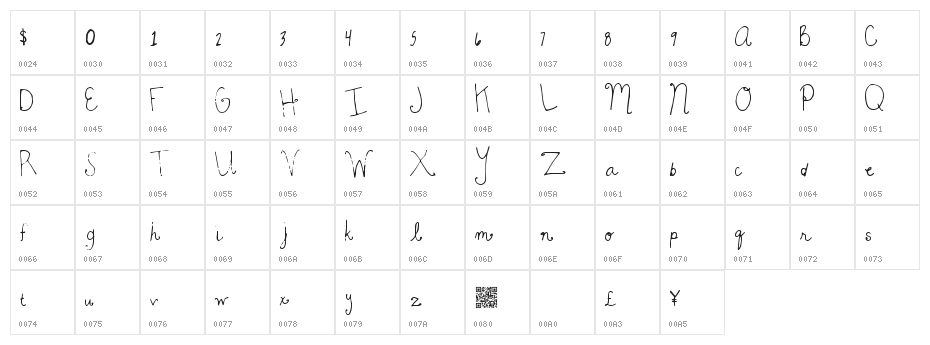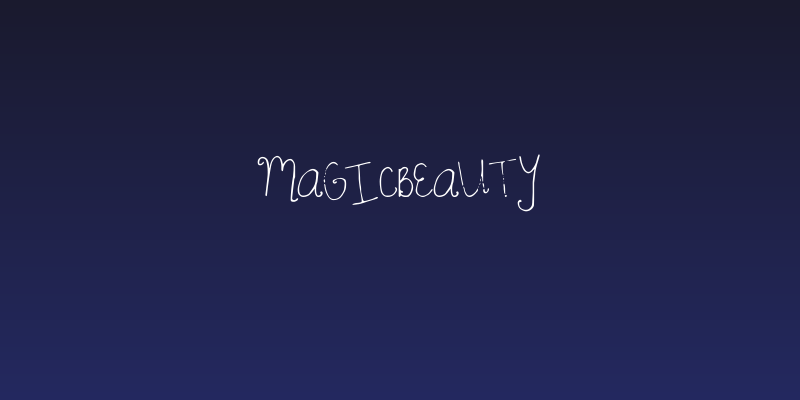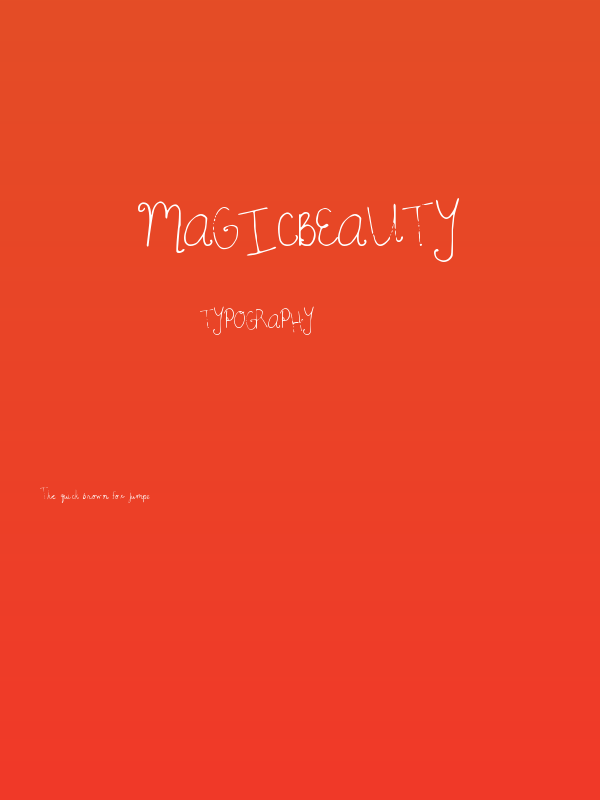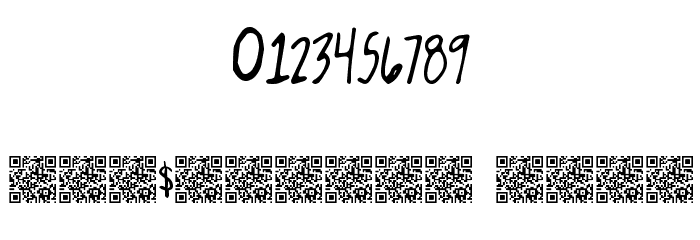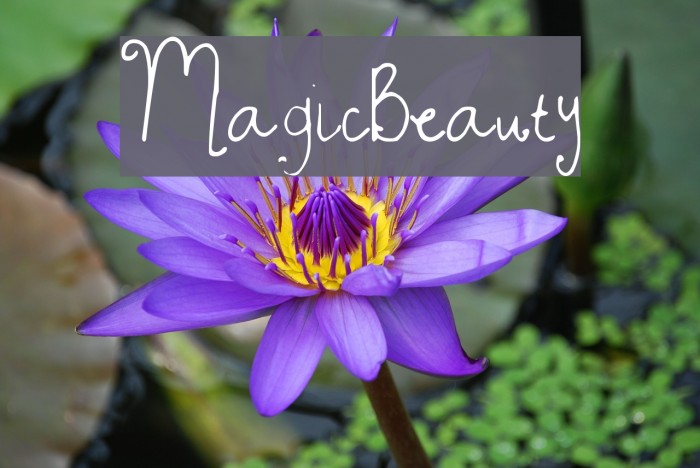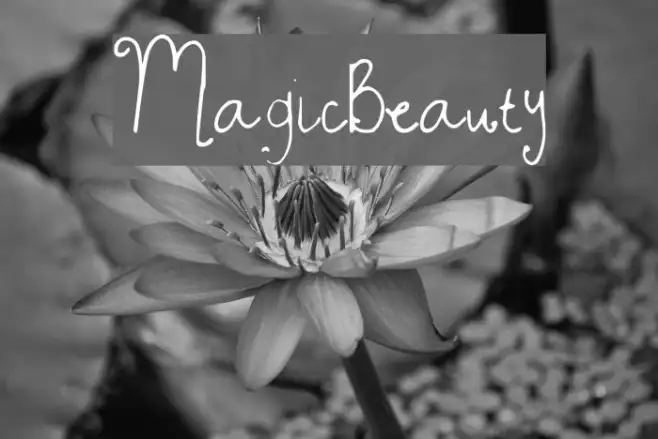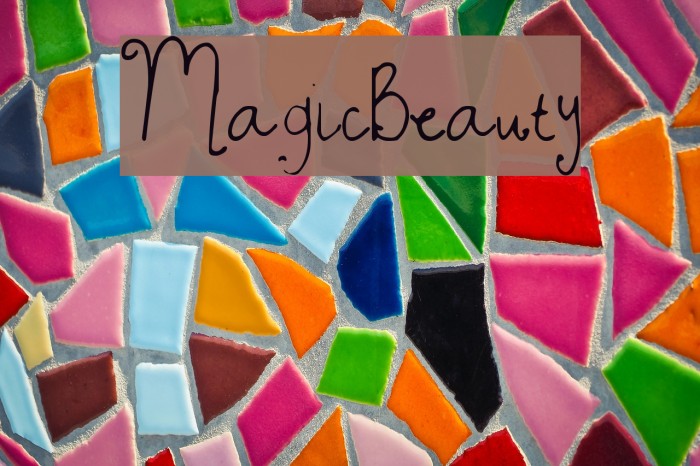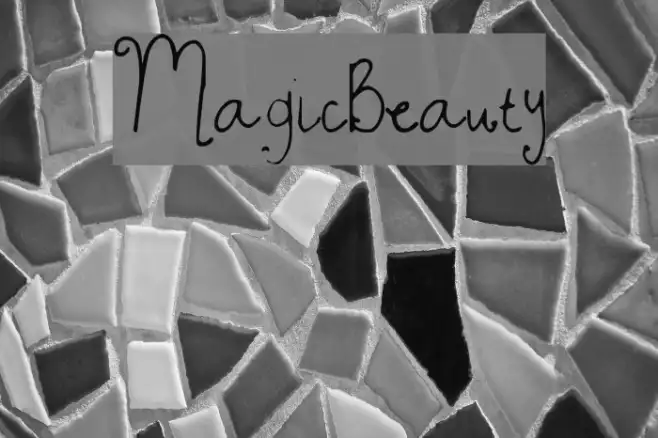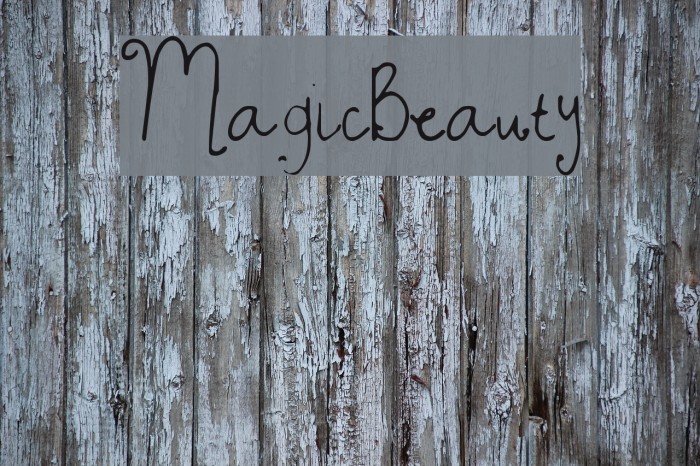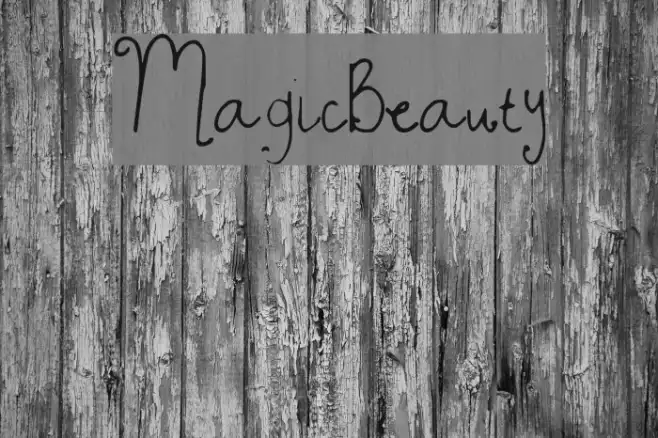
MagicBeauty Font
MagicBeauty Description
This font exudes a whimsical and playful charm, characterized by its hand-drawn, irregular strokes that give it a unique, artistic flair. The uppercase letters are tall and slender, with varying line thickness that adds a dynamic feel. The lowercase letters maintain a consistent style, with a slightly more compact form. Numbers are clear and legible, matching the overall aesthetic. Special characters are creatively integrated, enhancing the font's artistic appeal. This font is perfect for projects that require a touch of creativity and individuality.
MAGICBEAUTY UPPERCASE
MAGICBEAUTY LOWERCASE
MAGICBEAUTY OTHER CHARS
| Proposed Projects | Ideal for greeting cards, children's books, creative posters, and artistic branding. |